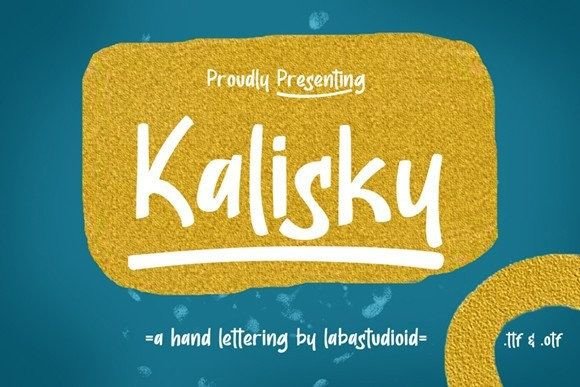
Step into the whimsical world of Kalisky, a display font that dances with a unique charm. Its playful nature brings a touch of earthiness, making it easy on the eyes and surprisingly readable. Whether you're an artist seeking inspiration, a designer craving distinction, or a blogger yearning for a distinctive voice, Kalisky stands as your font of choice.
Dive into a realm of creativity with Kalisky's boundless potential. Whether it's a captivating quote, an eye-catching shirt design, a website yearning for a splash of personality, or a brand seeking a memorable identity, Kalisky rises to the occasion. Its versatility extends to children's designs, blogs, and logos, effortlessly adding a touch of playfulness and enchantment.
With Kalisky, you're not just downloading a font; you're unlocking a gateway to a world brimming with individuality and charm. Let your imagination soar as you weave words into art, creating designs that resonate with your audience. From the subtle elegance of a quote to the vibrant energy of a brand logo, Kalisky transforms the ordinary into the extraordinary.